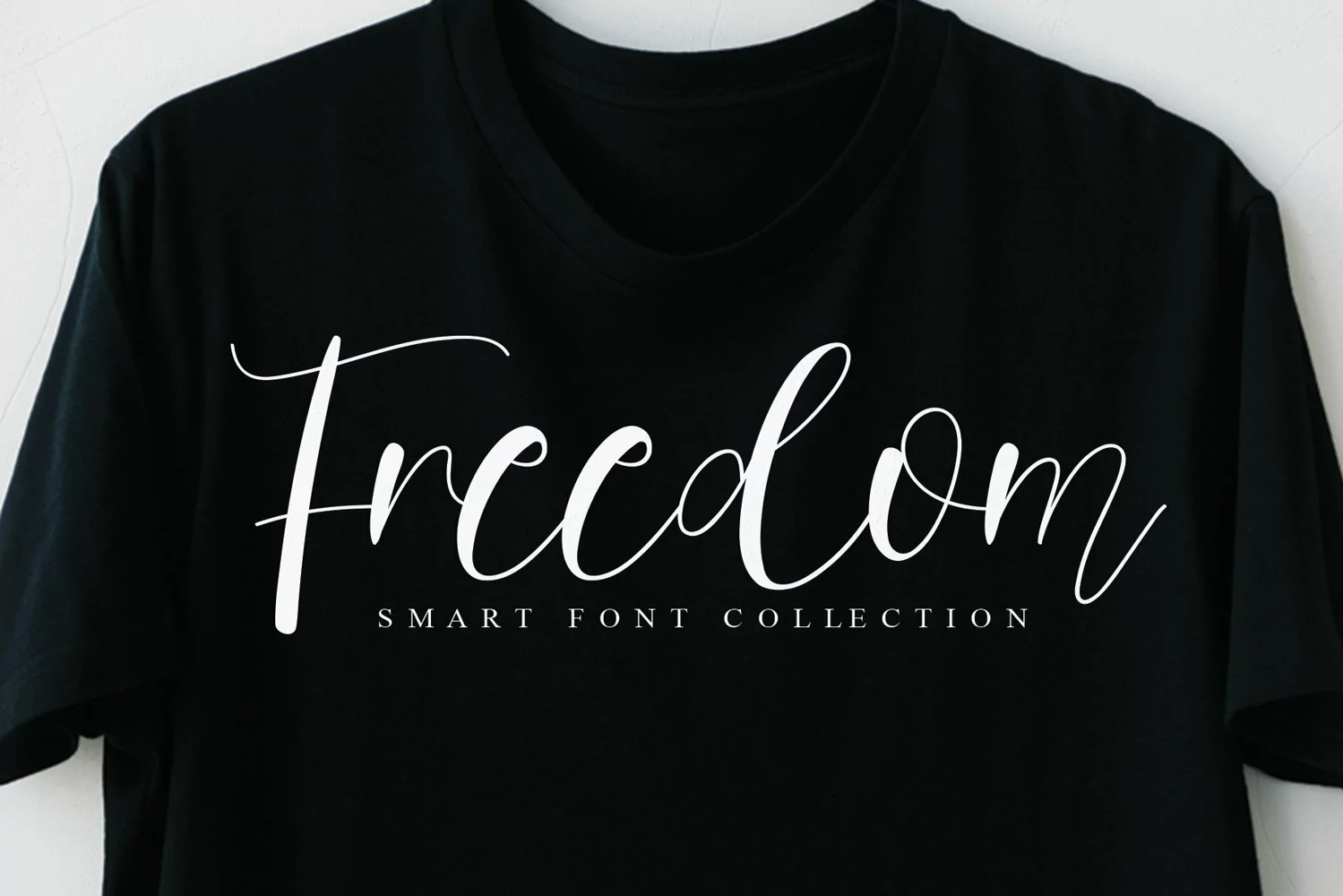
Butterly
the latest style letters are perfect for wall displays, wedding invitations, social media post logos,
advertisements, product packaging, product designs, labels, photography, watermarks, invitations, stationery,
and any project that requires taste handwriting.